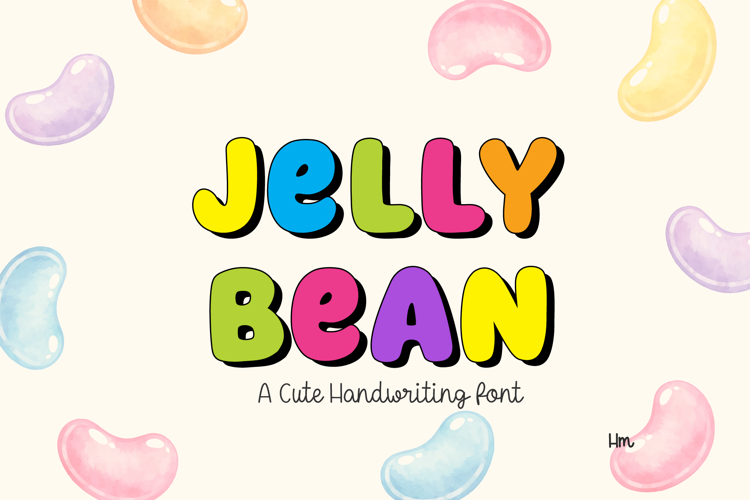
Jelly Bean is a cute candy-inspired bubble font with playful, rounded letters. Perfect for kids' designs, stickers, classroom projects, Cricut crafts, and fun t-shirt designs.
Perfect for creative projects that need a sweet, playful, and colorful look!